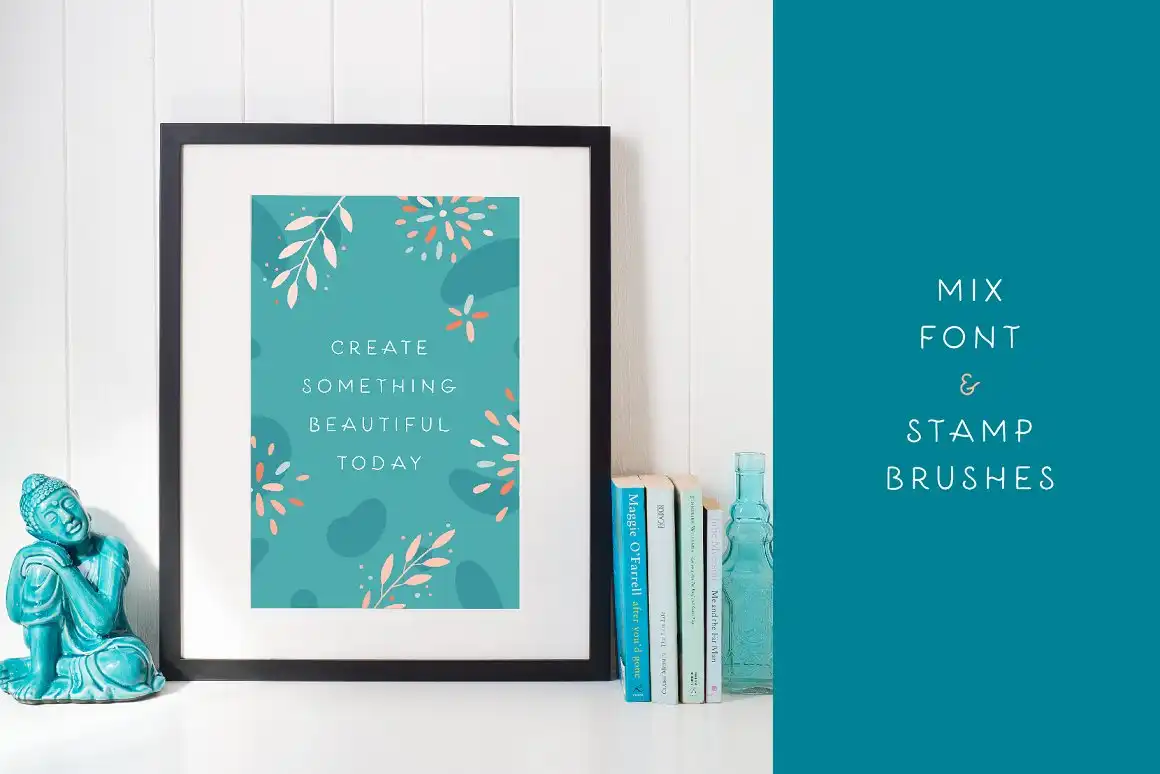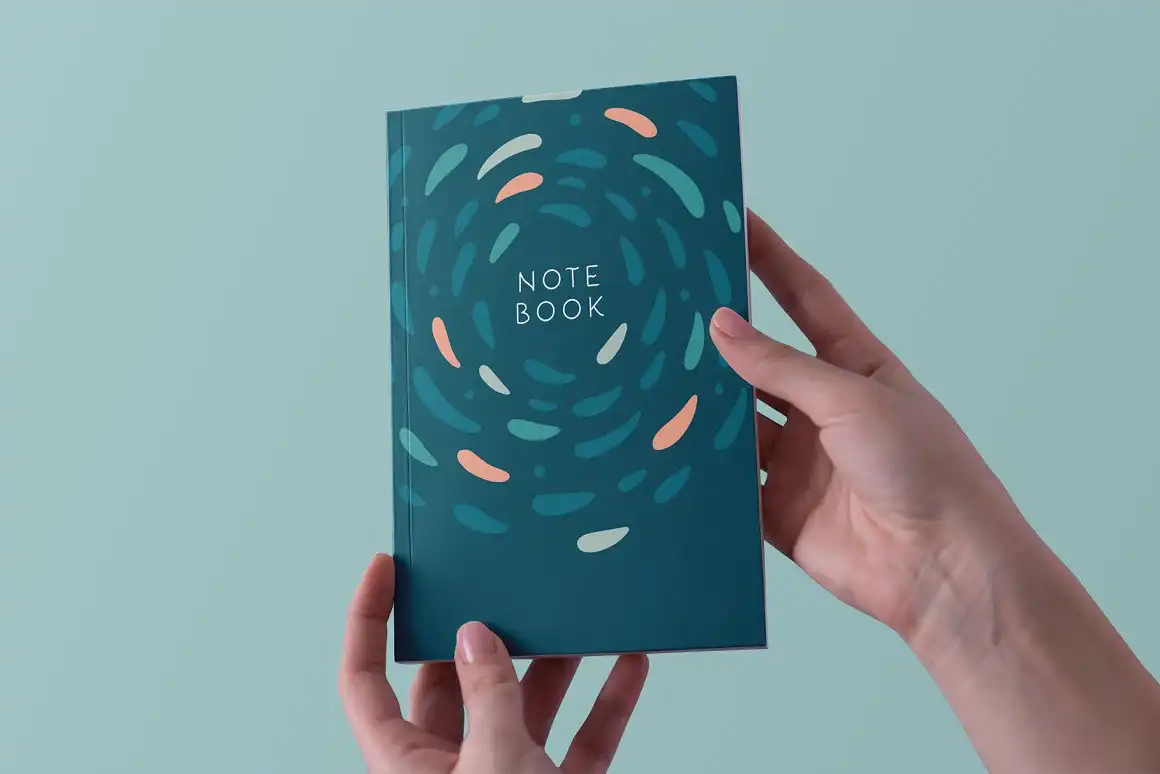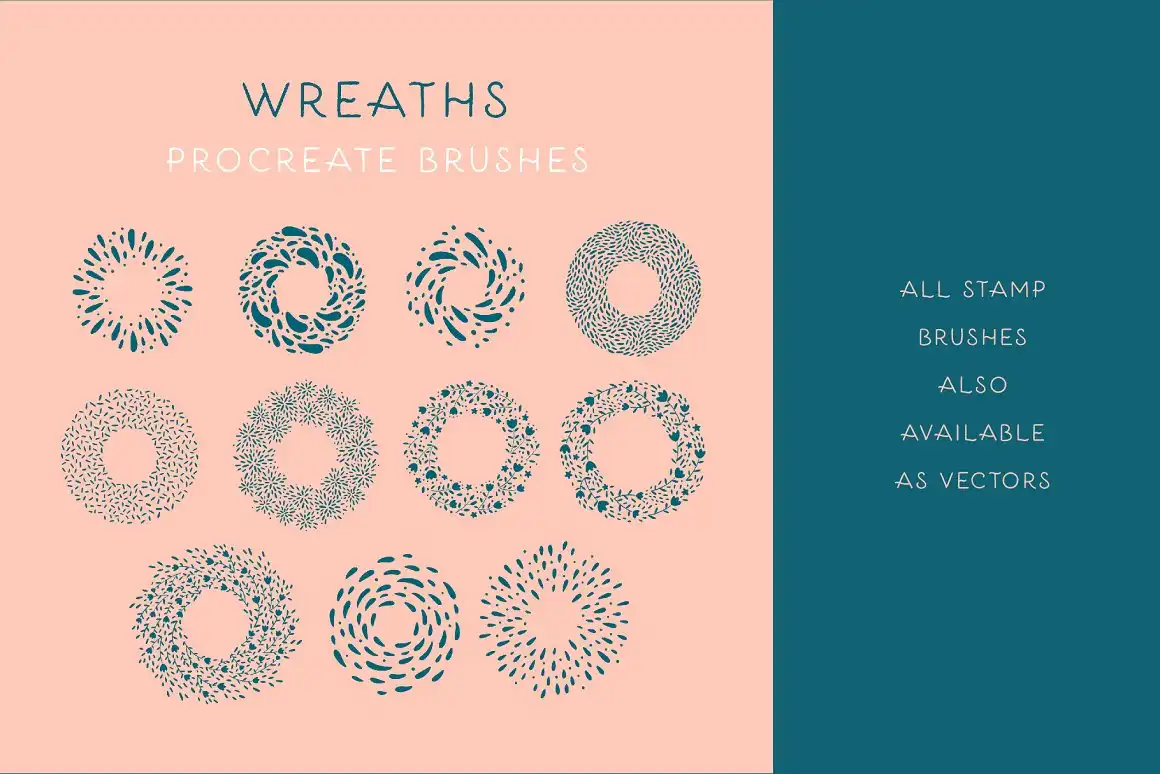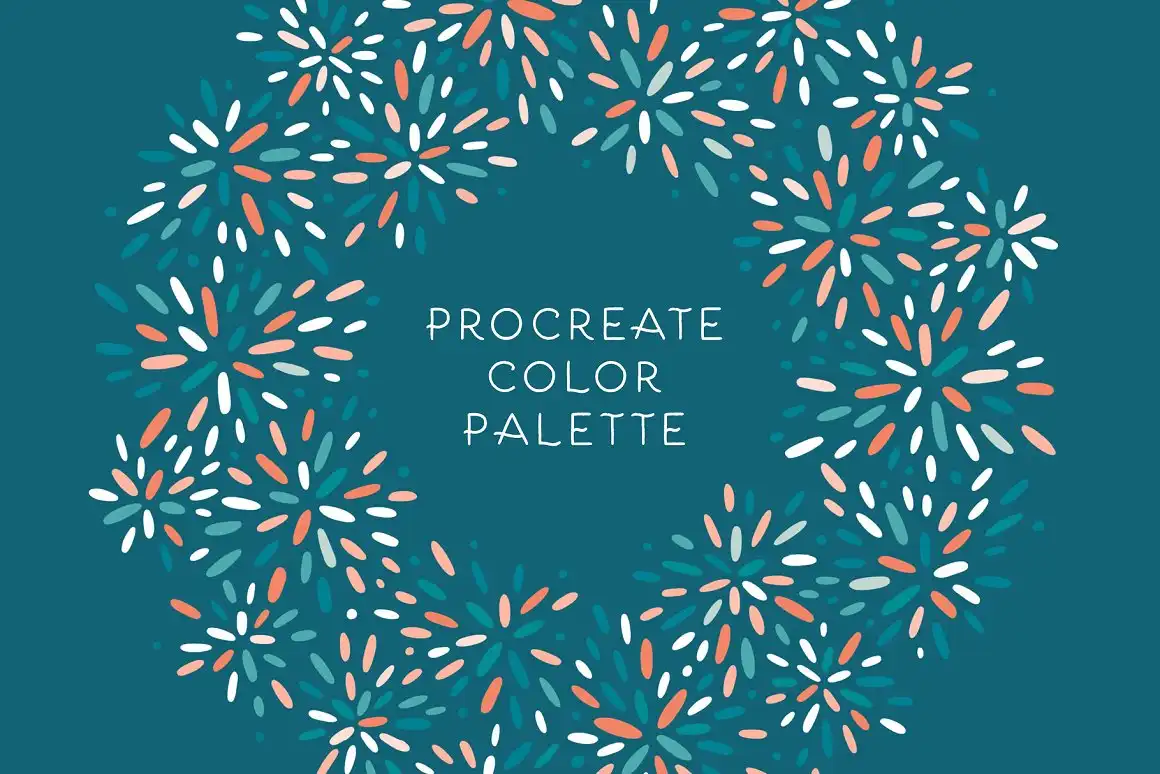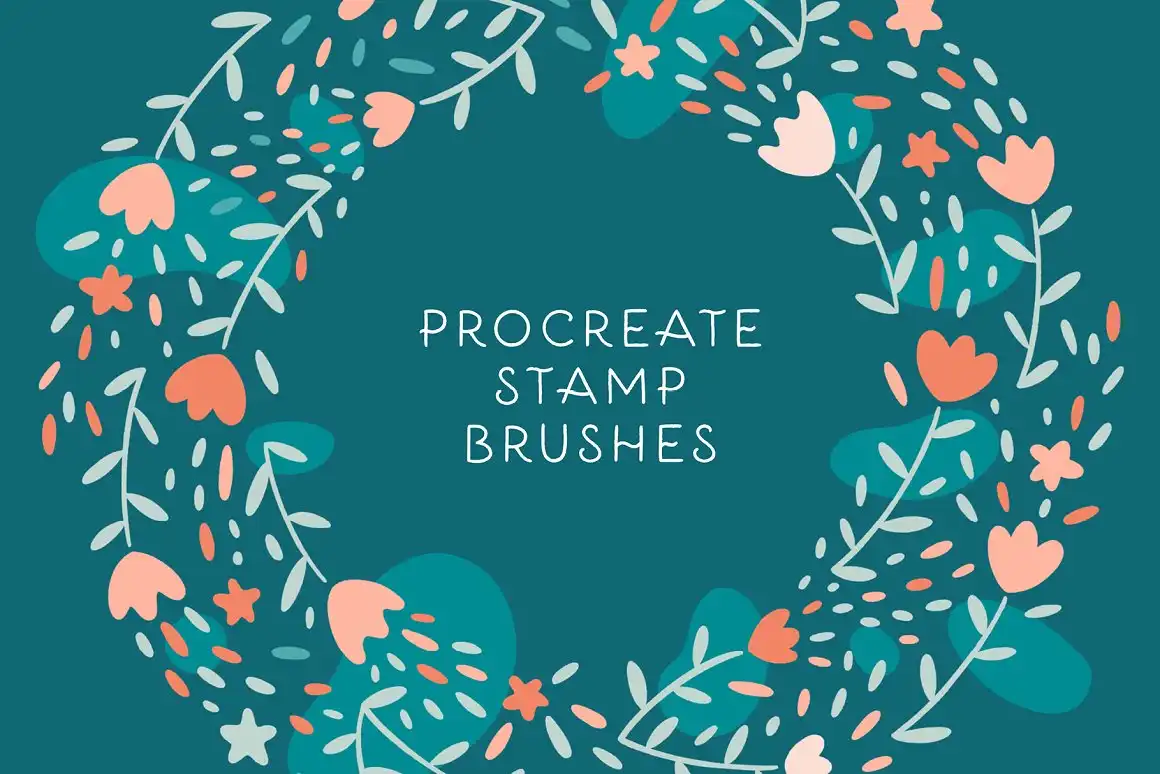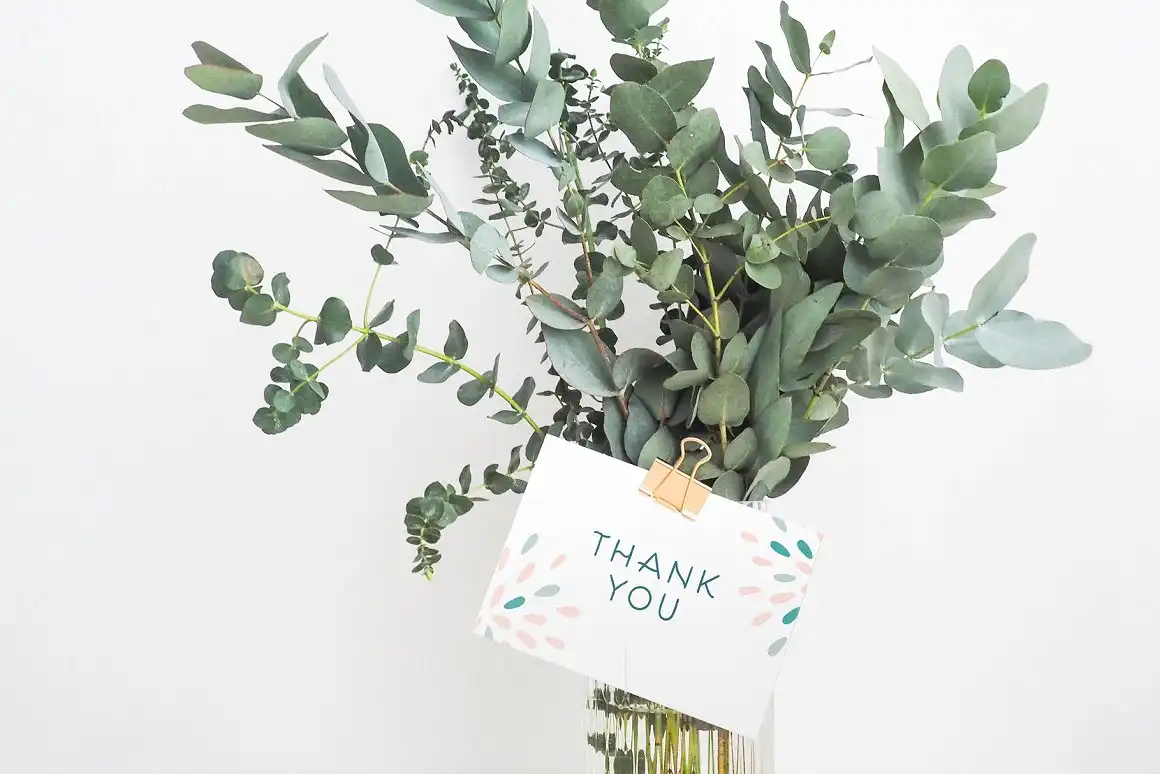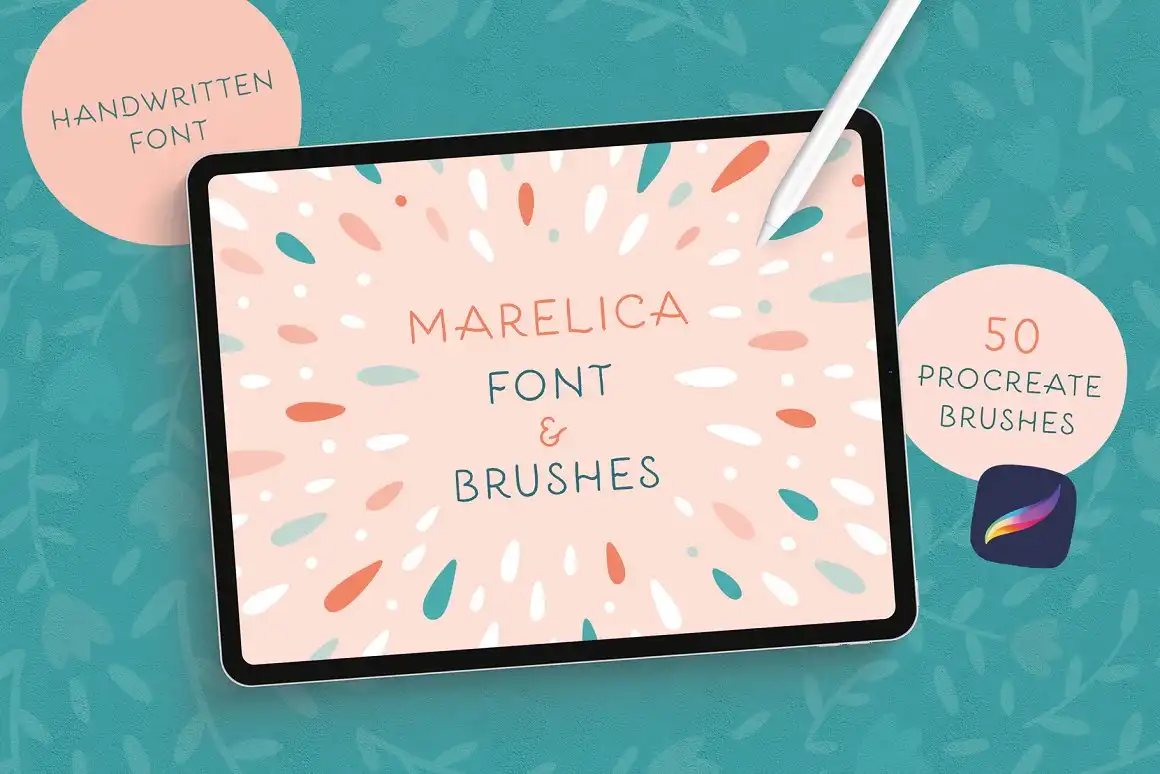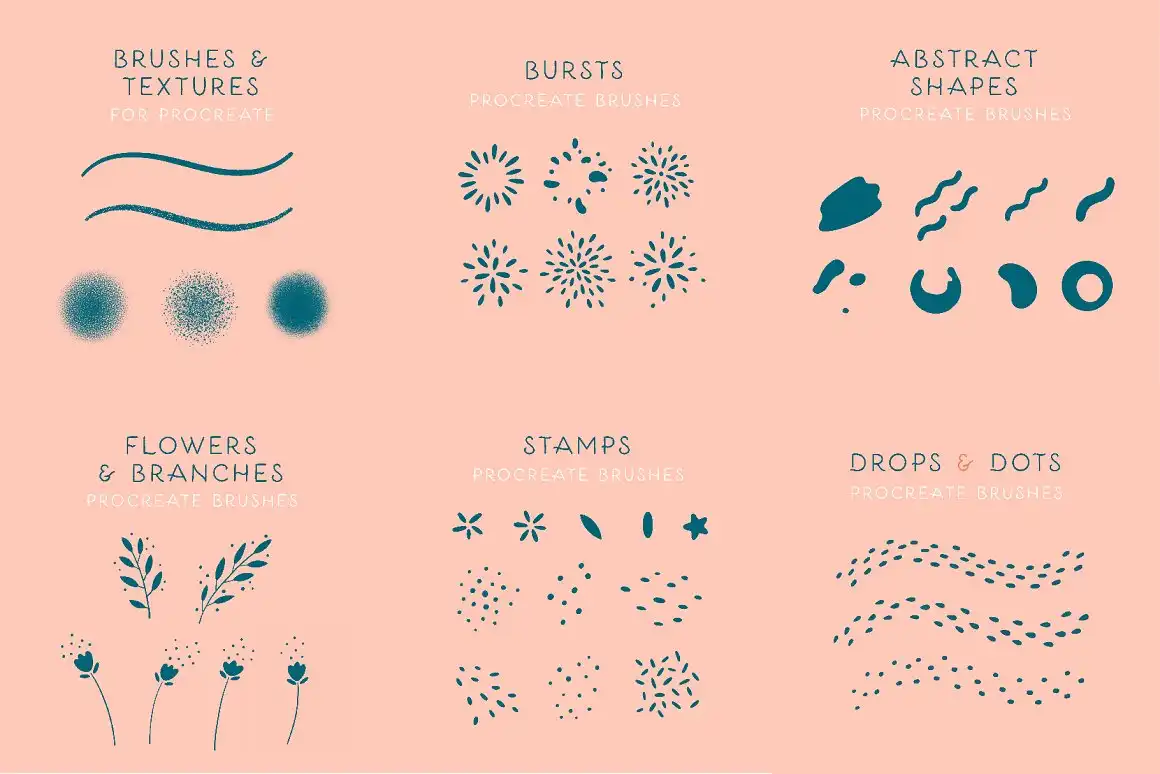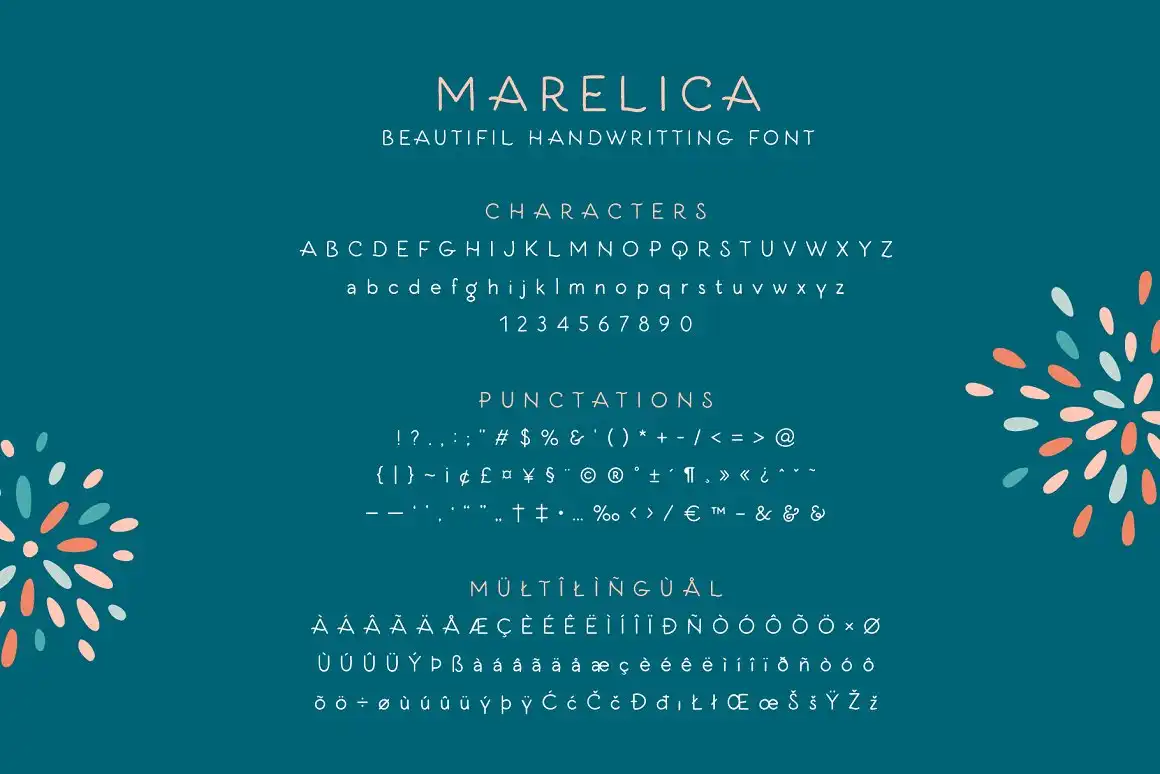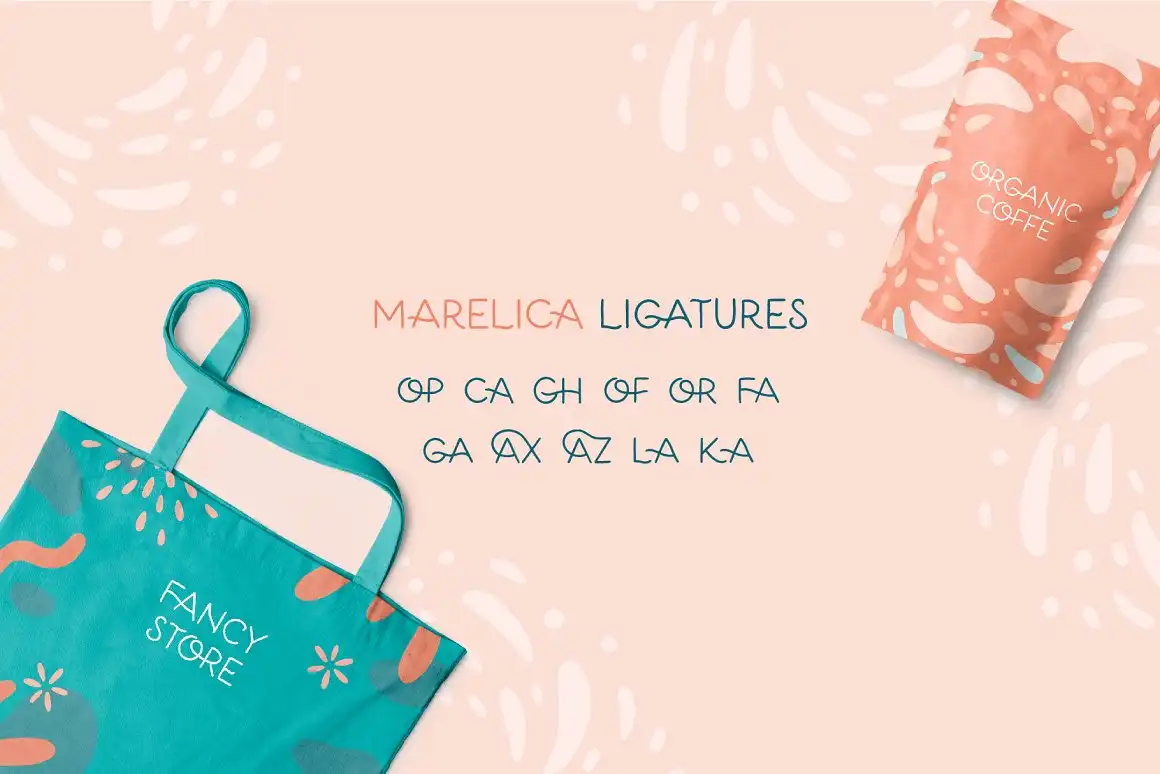
Welcome to Marelica Font & Procreate Brushes! 🎨✨
This digital download features an enchanting blend of a handwritten font and an array of Procreate brushes, perfect for creatives looking to add a touch of elegance to their designs! With instant access, you can start crafting beautiful projects right away!
Marelica is not just a font; it’s a delightful toolkit for the modern designer. The handwritten font includes both uppercase and lowercase letters, numbers, symbols, and punctuation, along with multilingual characters and unique ligatures. The Procreate brush set boasts a variety of stamps, ink, and texture brushes, including stunning wreaths, florals, and bursts. 🌸✨
- Handwritten Font: Perfect for creating personalized quotes, branding, and invitations.
- Procreate Brushes: Includes a mix of stamps, ink, and texture brushes to elevate your artwork.
- Multilingual Support: Use the font across various languages with ease.
- Ligatures: Add a unique flair to your text with beautifully crafted ligatures.
- Versatile Usage: Ideal for headlines, invitations, and more creative projects.
This delightful set is perfect for UI designers, illustrators, and anyone looking to add a touch of creativity to their projects! Whether you’re crafting invitations, designing branding, or creating stunning quotes, Marelica has got you covered! 🎉